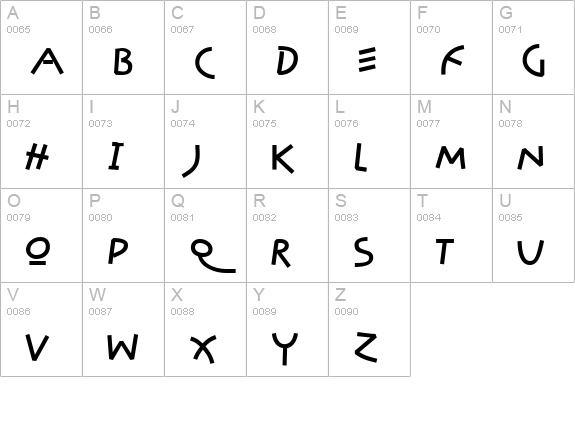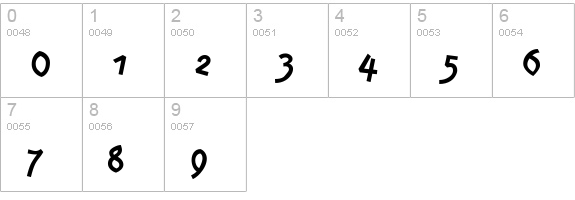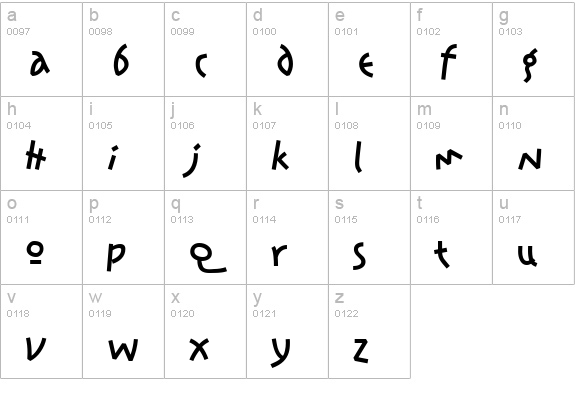
Prawn Handwrite Font Details
Prawn Handwrite font is a charming and whimsical typeface that exudes a sense of creativity and playfulness. Its flowing lines and hand-drawn style give any design a unique and personalized touch. Perfect for adding a touch of fun to invitations, greeting cards, posters, and more, Prawn Handwrite font is sure to catch the eye and make a lasting impression. Best of all, Prawn Handwrite font is completely free to download at FontsMarket.com. This means you can easily add this delightful font to your collection without any cost. Don't miss out on the opportunity to enhance your projects with the playful charm of Prawn Handwrite font - download it for free today!